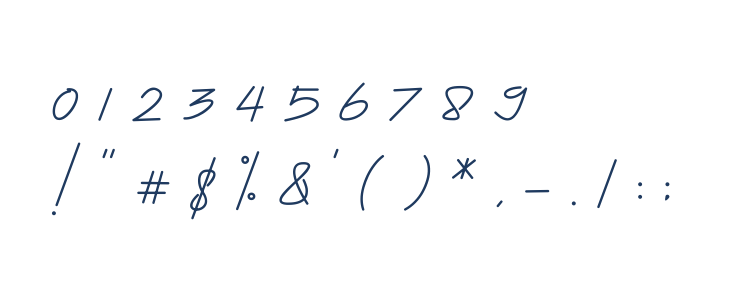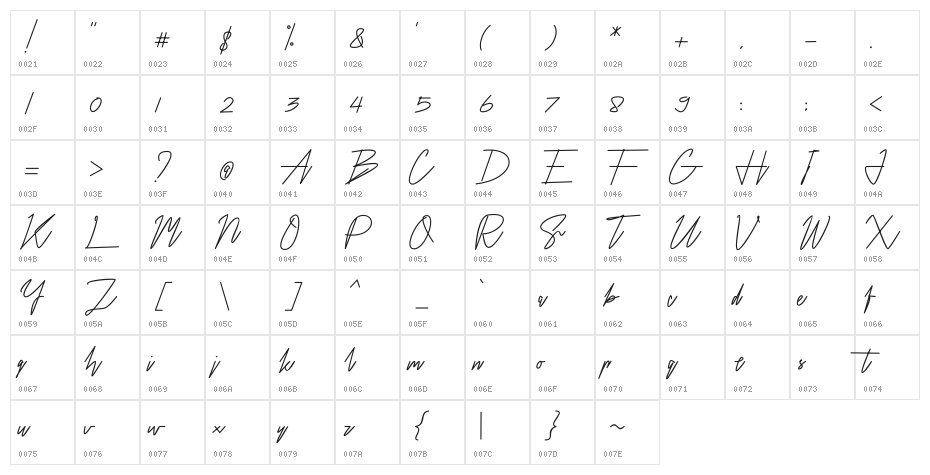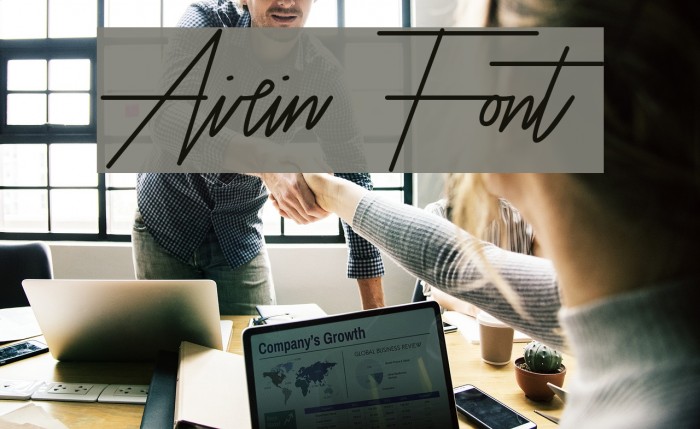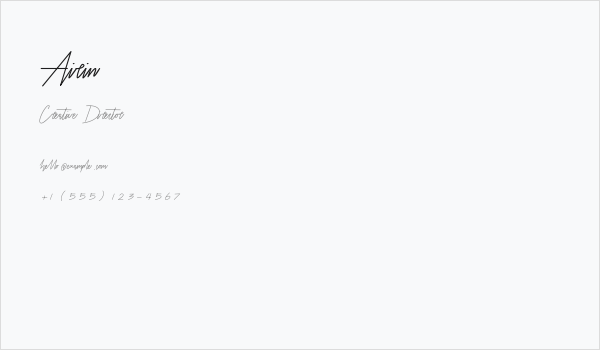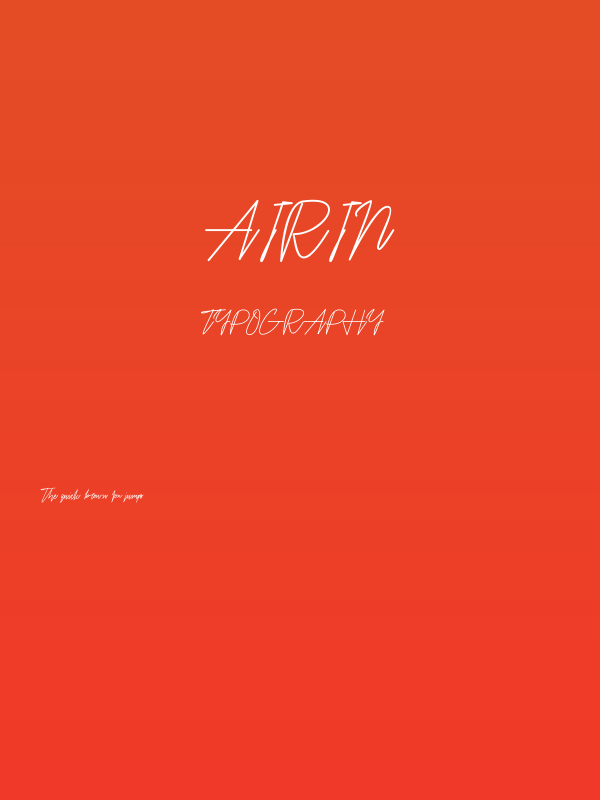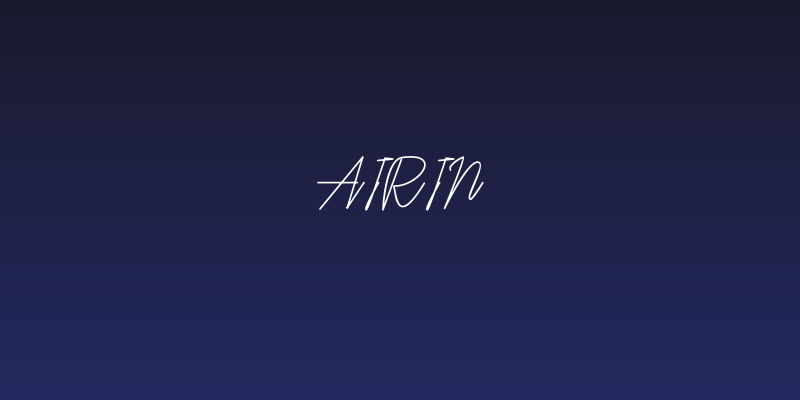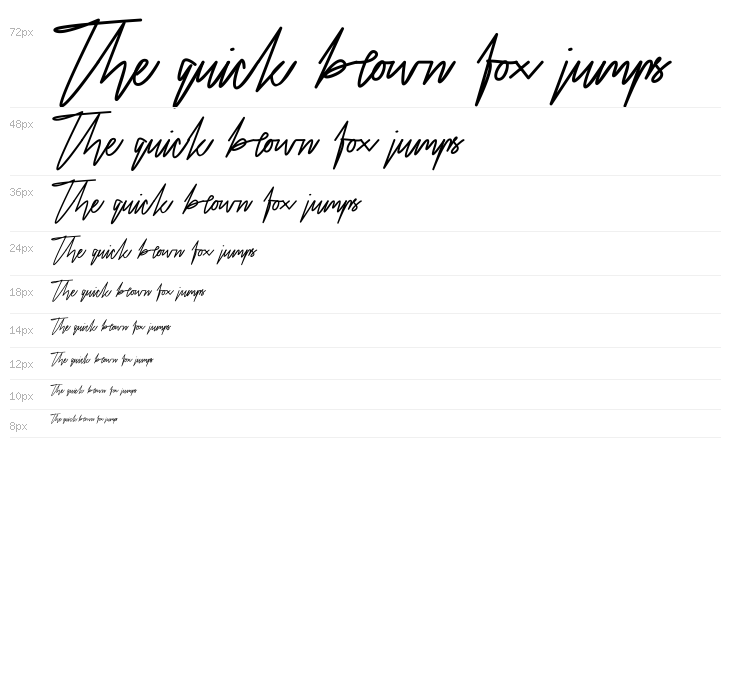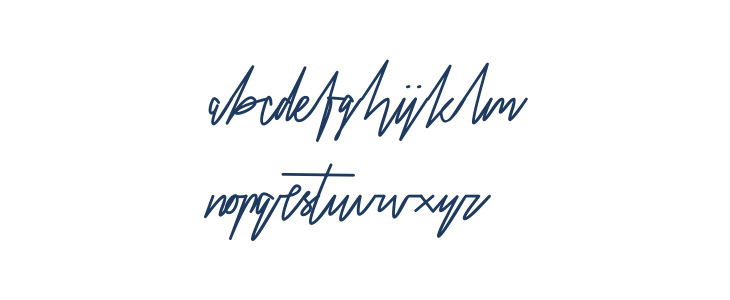
Airin Font
Airin Description
This font features a dynamic and flowing script style, characterized by its elegant and fluid letterforms. The uppercase letters are tall and slender, with a slight slant that adds a sense of movement and grace. The lowercase letters are more compact, with intricate loops and connections that create a cohesive and harmonious appearance. The numerals are consistent with the overall style, maintaining the same fluidity and elegance. Special characters are well-integrated, enhancing the font's versatility. This font exudes a sense of sophistication and creativity, making it suitable for a variety of design applications.
| Overall Style | Elegant, Artistic |
| Use Case | Logos, Invitations, Artistic Designs |
| Proposed Projects | Ideal for wedding invitations, branding projects, elegant logos, and artistic posters. |